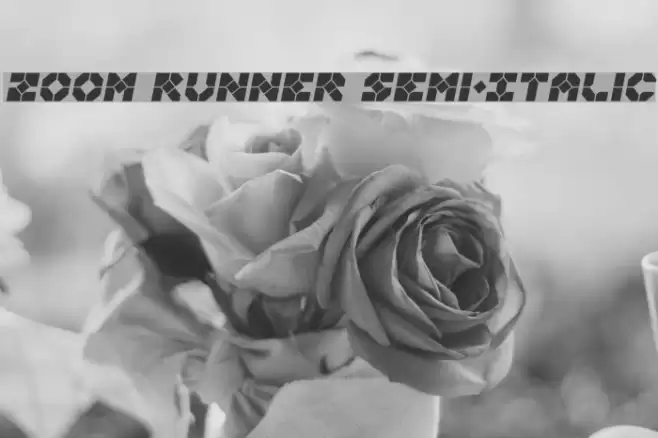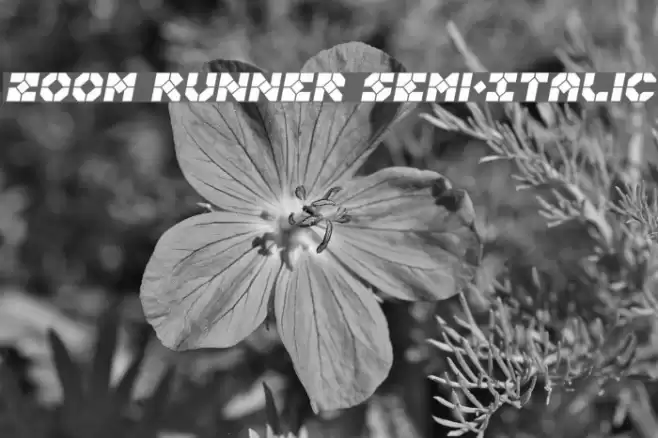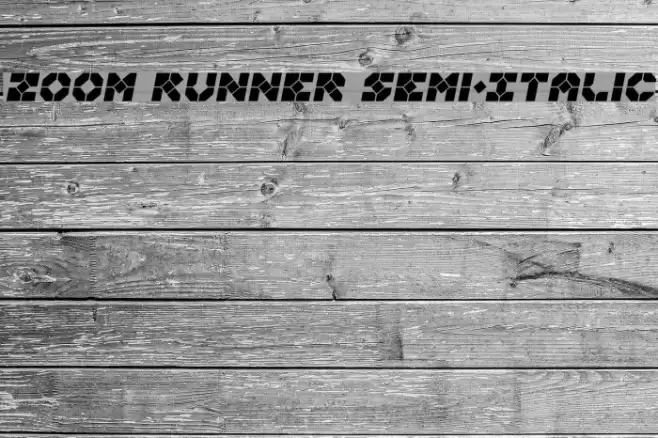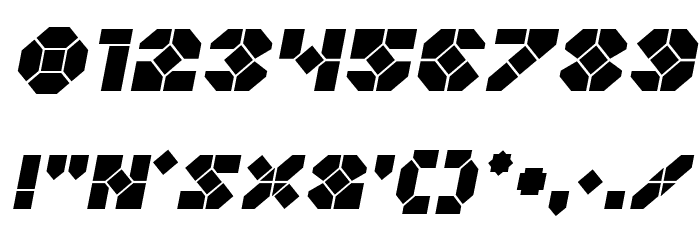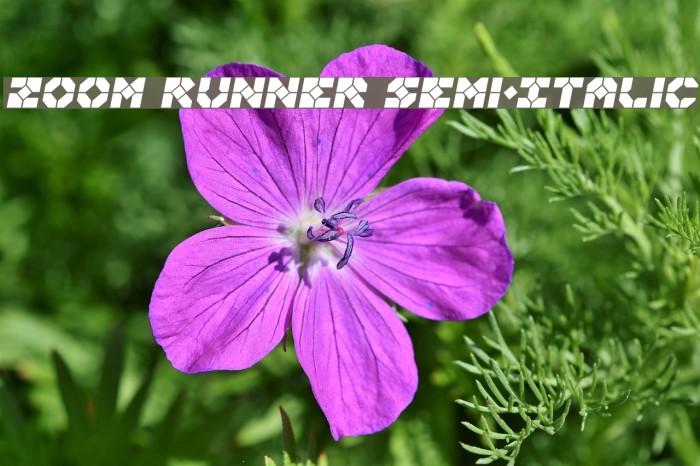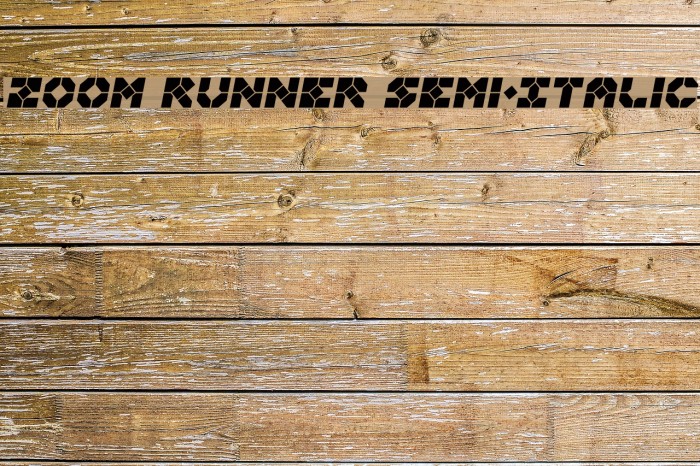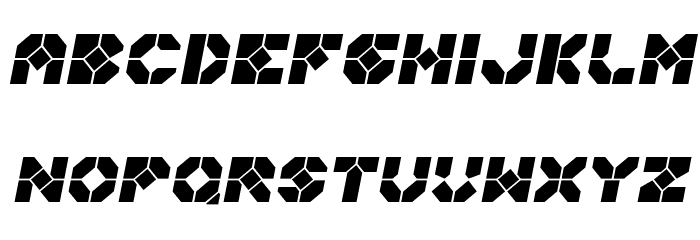
Zoom Runner Semi-Italic Font
Zoom Runner Semi-Italic Description
This font features a bold and geometric design, characterized by its angular and block-like structure. Each character is composed of distinct, sharp edges and facets, giving it a futuristic and digital appearance. The semi-italic slant adds a dynamic and forward-moving feel, enhancing its modern aesthetic. The uppercase and lowercase letters maintain a consistent style, with the lowercase mirroring the uppercase in form. Numbers and special characters are designed to match the angular theme, ensuring uniformity across all elements. The font's unique style makes it stand out, ideal for projects that require a strong visual impact.
A bold, geometric font with a futuristic, semi-italic design from Sci-fi fonts.
- Proposed Projects: Ideal for tech-related branding, video game titles, futuristic posters, and digital media.